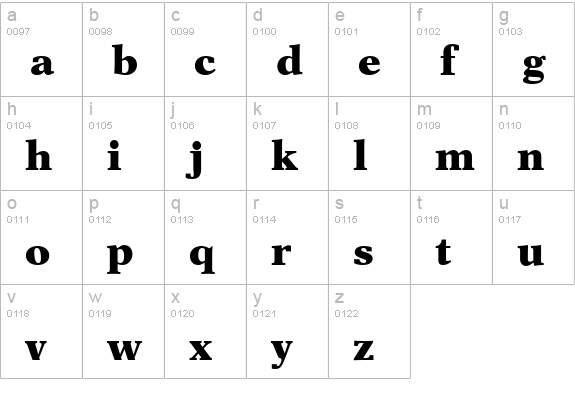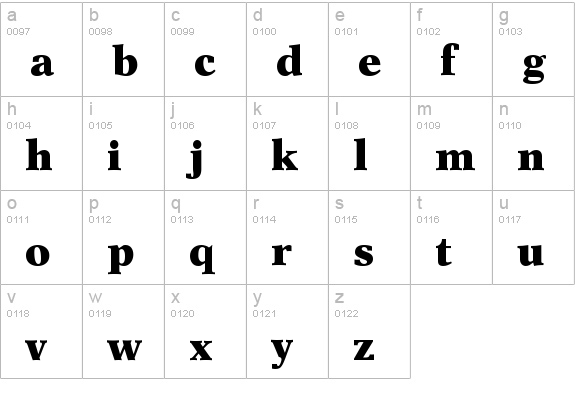
Orchid Black SSi Black is a maximum-weight, dramatic variant in the Orchid typeface family \xE2\x80\x94 well suited to maximum-impact headlines, posters, and packaging.